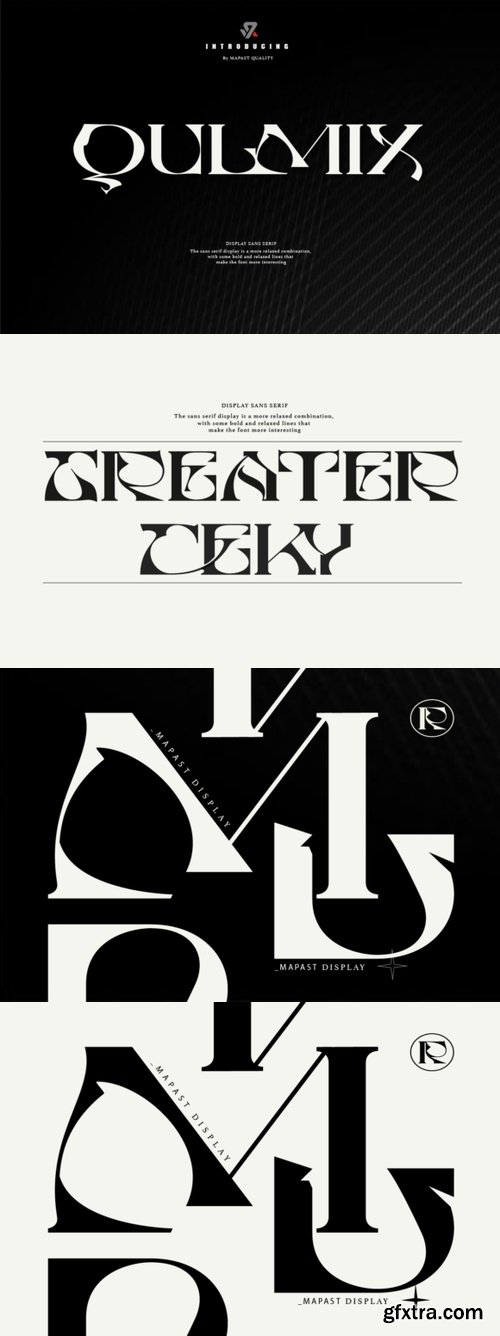
Qulmix Font
- Qulmix is a sophisticated and dynamic display sans-serif font, offering a bold yet elegant design. Its unique blend of striking lines and refined curves adds a modern and artistic touch, making it perfect for luxury branding, editorial design, and high-impact creative projects.